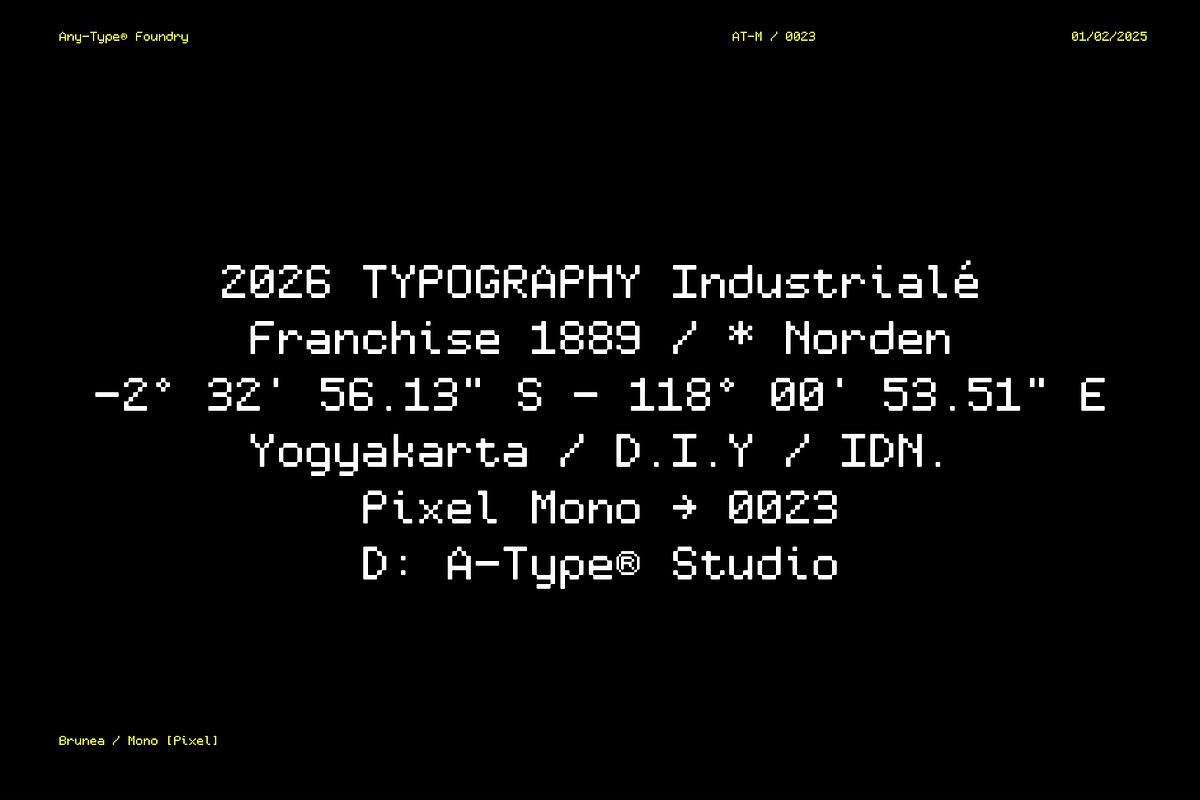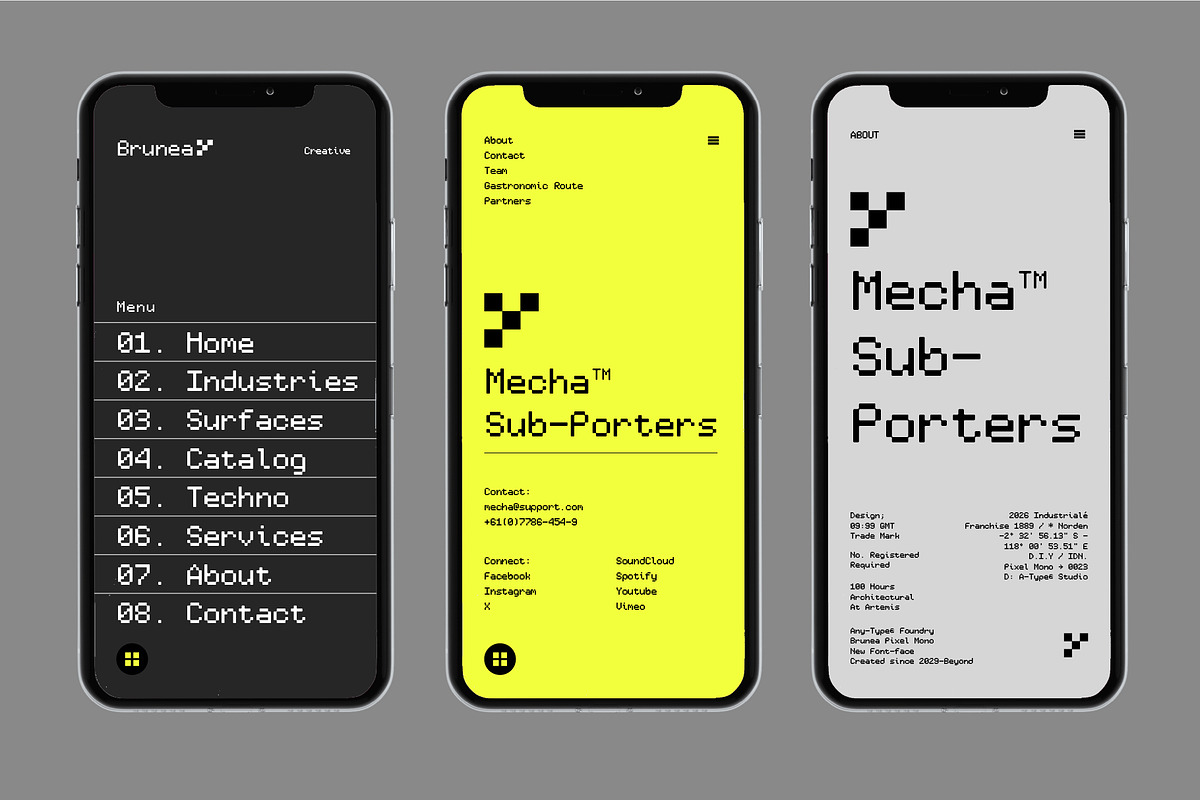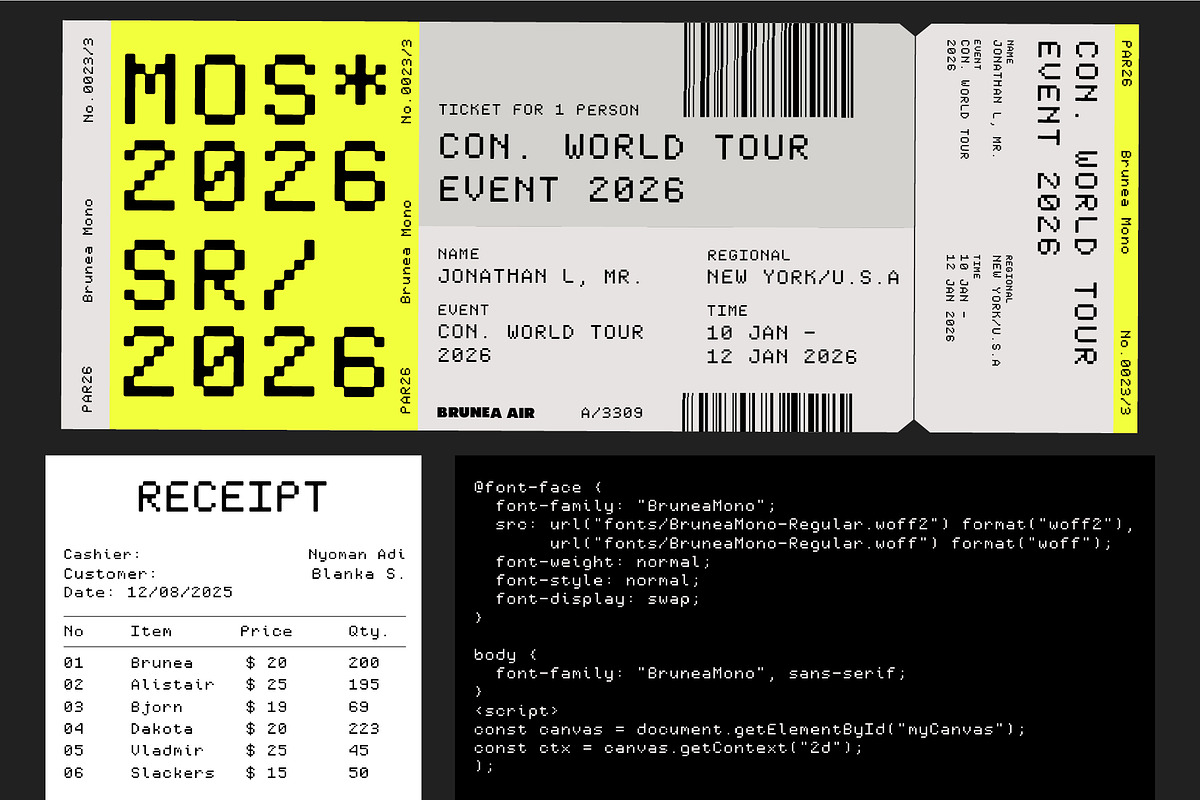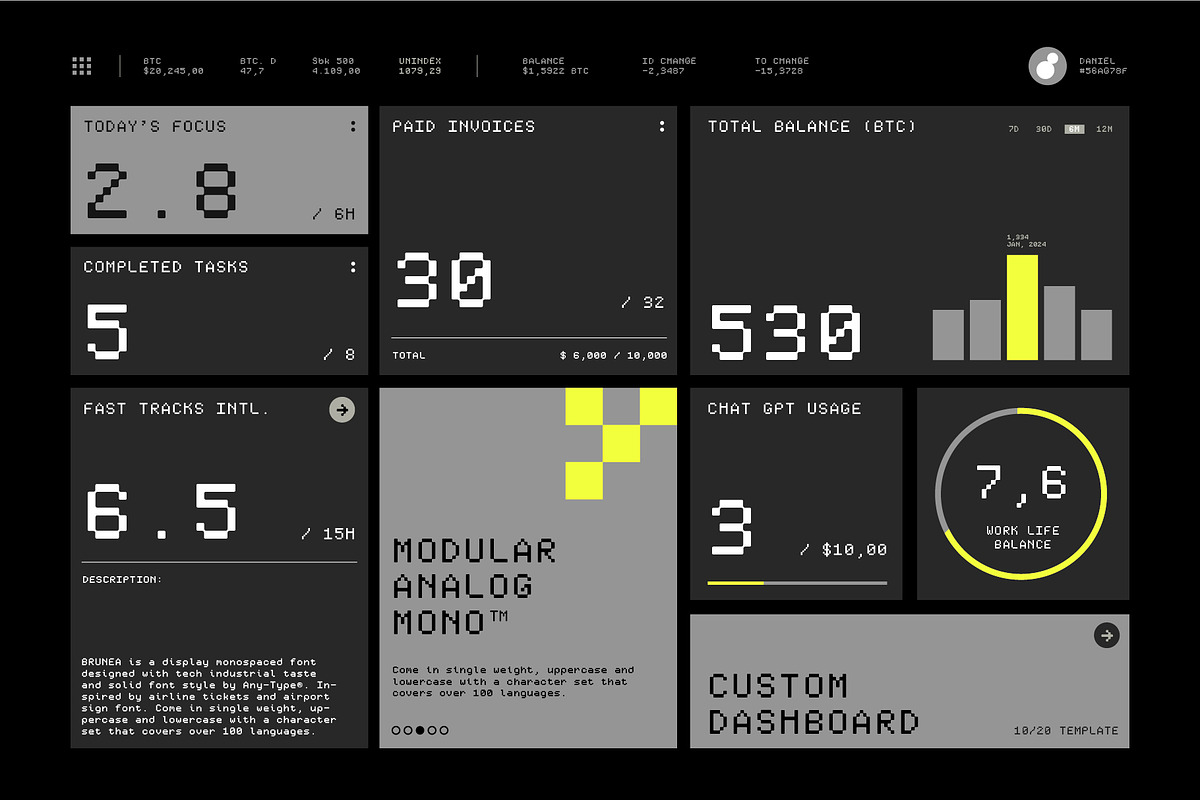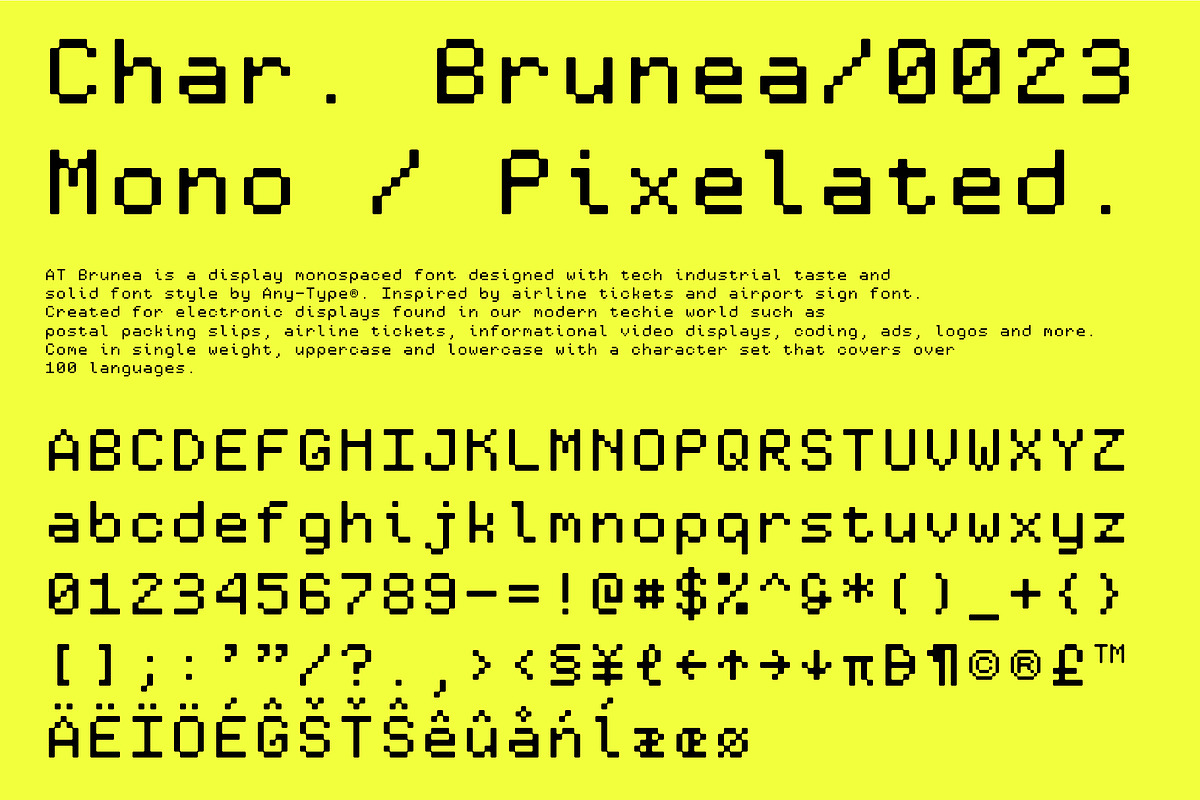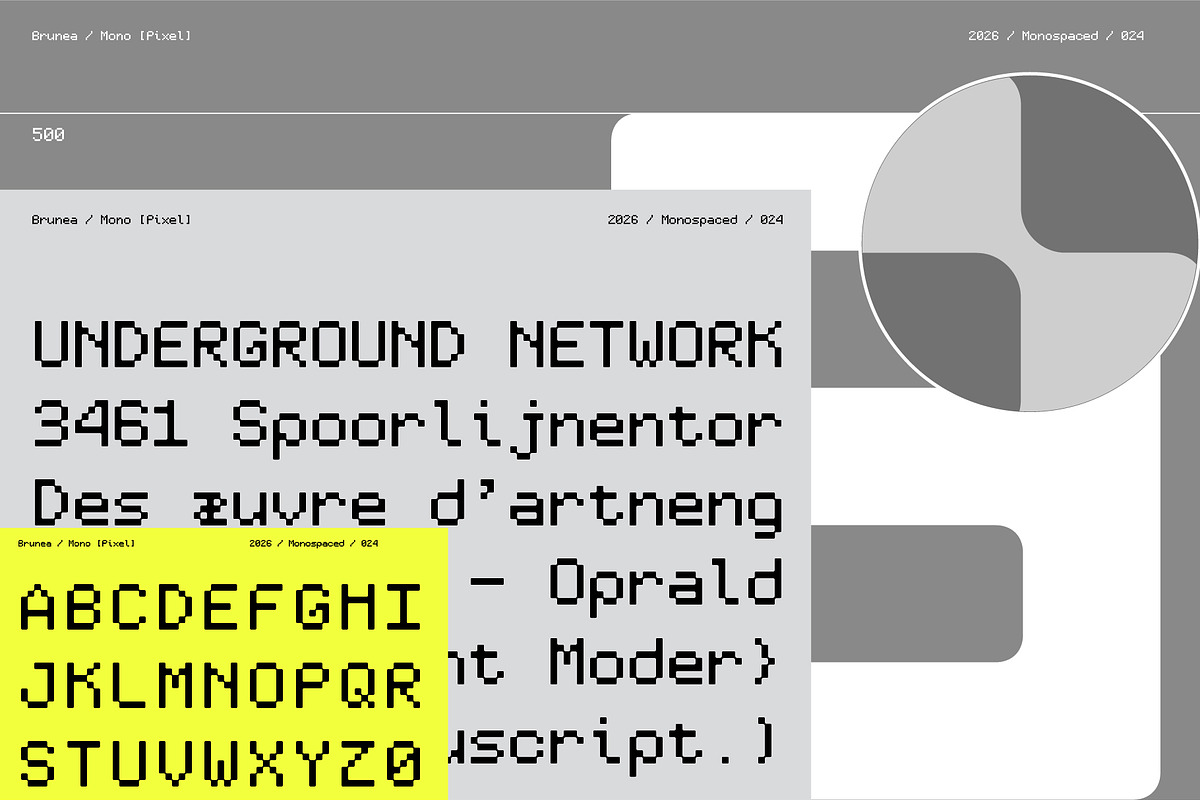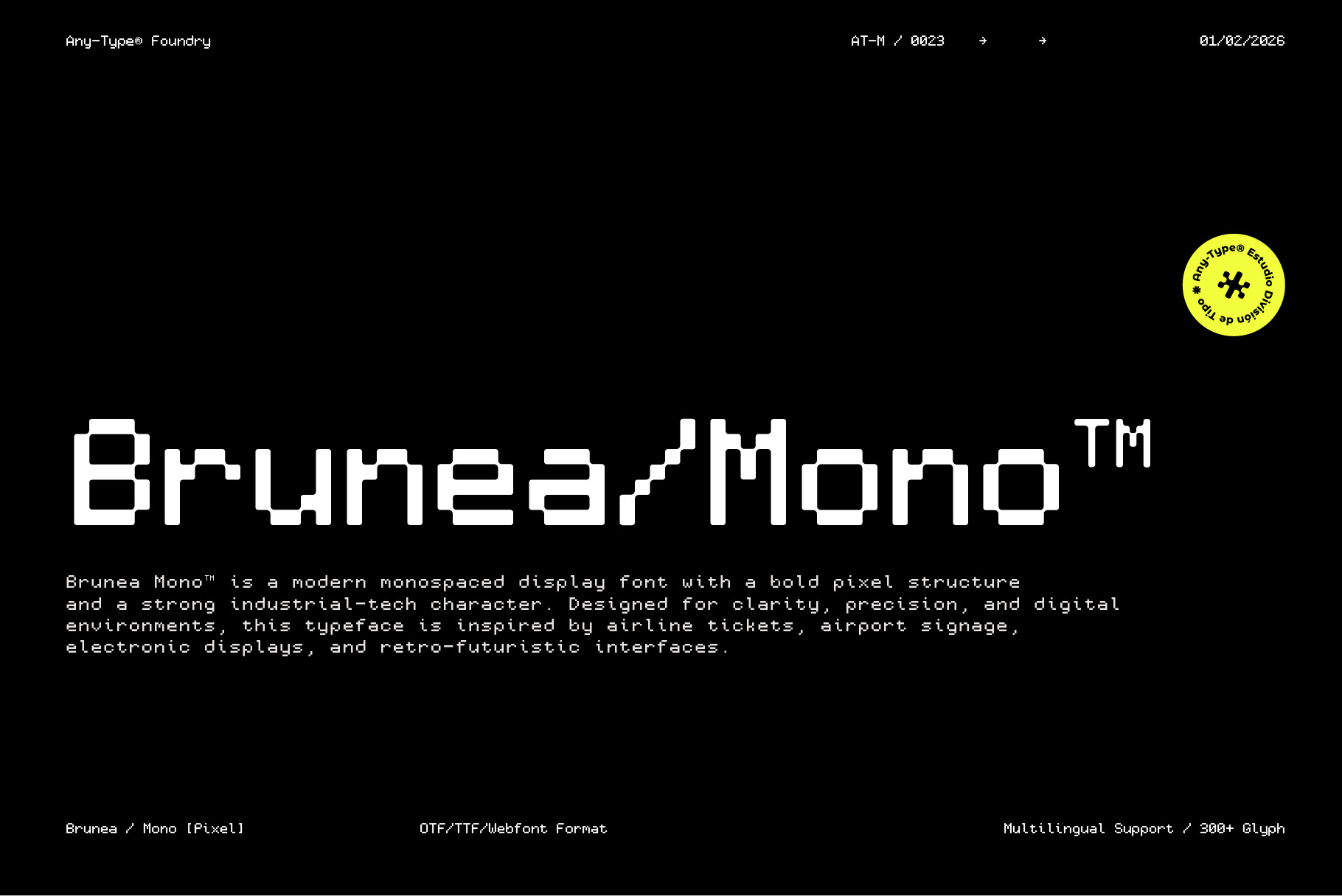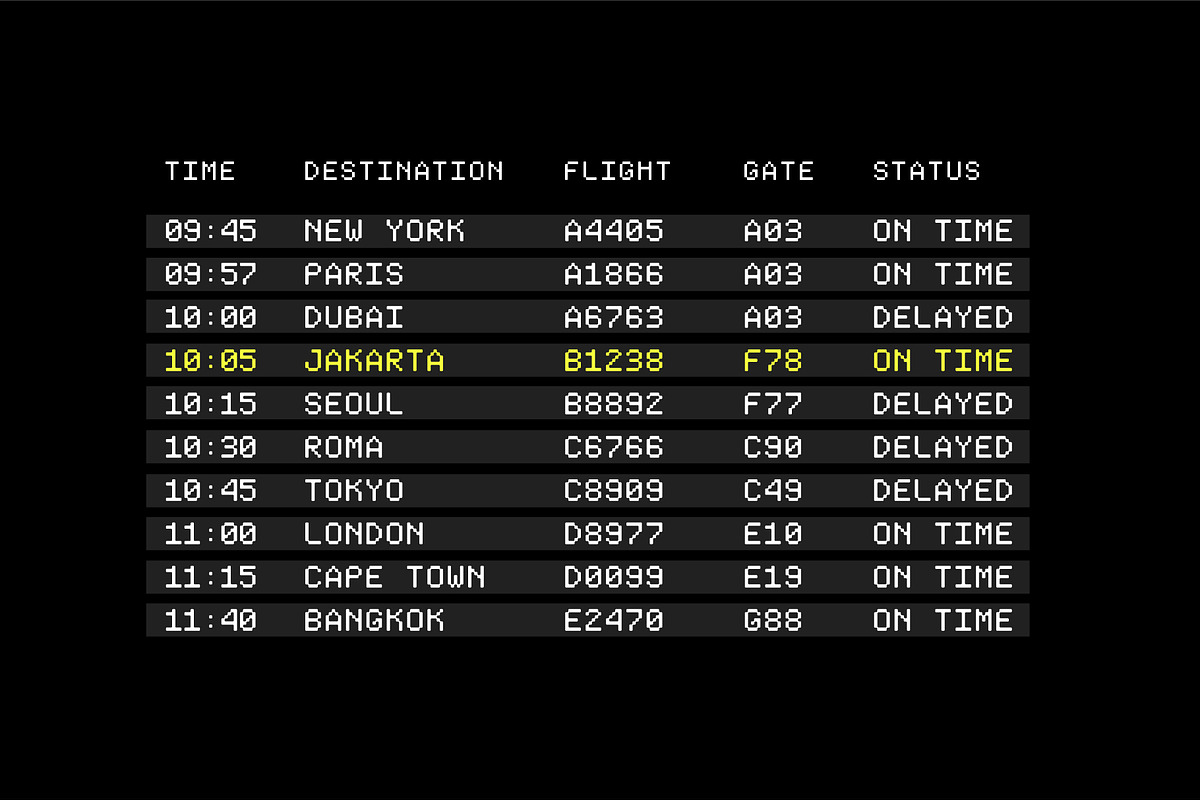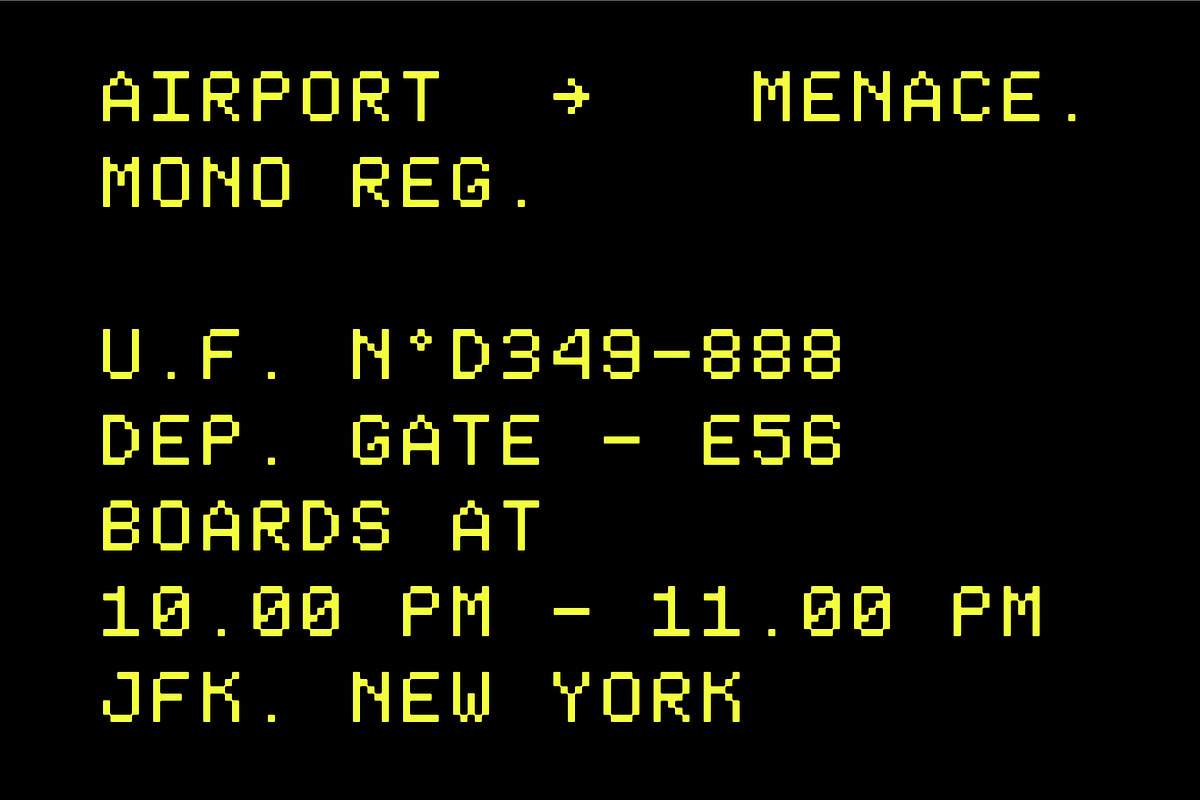
Brunea – Pixel Monospaced Font
Brunea Mono™ – Pixel Monospaced Display Font
Brunea Mono™ is a modern monospaced display font with a bold pixel structure and a strong industrial-tech character. Designed for clarity, precision, and digital environments, this typeface is inspired by airline tickets, airport signage, electronic displays, and retro-futuristic interfaces.
Built with a clean monospace grid, Brunea Mono™ delivers a distinctive machine-driven rhythm while remaining highly readable. Its solid construction makes it perfect for projects that demand a technical, futuristic, or data-oriented visual identity.
This font is especially suited for:
Tech & startup branding
Coding visuals & developer interfaces
Electronic displays & UI design
Airport, travel & transportation graphics
Posters, ads, and editorial headlines
Logos with a digital or industrial tone
Brunea Mono™ comes in a single, well-balanced weight with uppercase and lowercase characters, extensive punctuation, and multilingual support covering 100+ languages. Every glyph is carefully crafted to maintain consistency across screens and print.
Monospaced pixel display font
Uppercase & lowercase letters
Numbers, symbols & punctuation
Multilingual support (300+ glyphs)
Clean, sharp, tech-inspired design
Whether you’re designing for screens, code-driven visuals, or futuristic branding, Brunea Mono™ brings a bold digital voice to your typography.